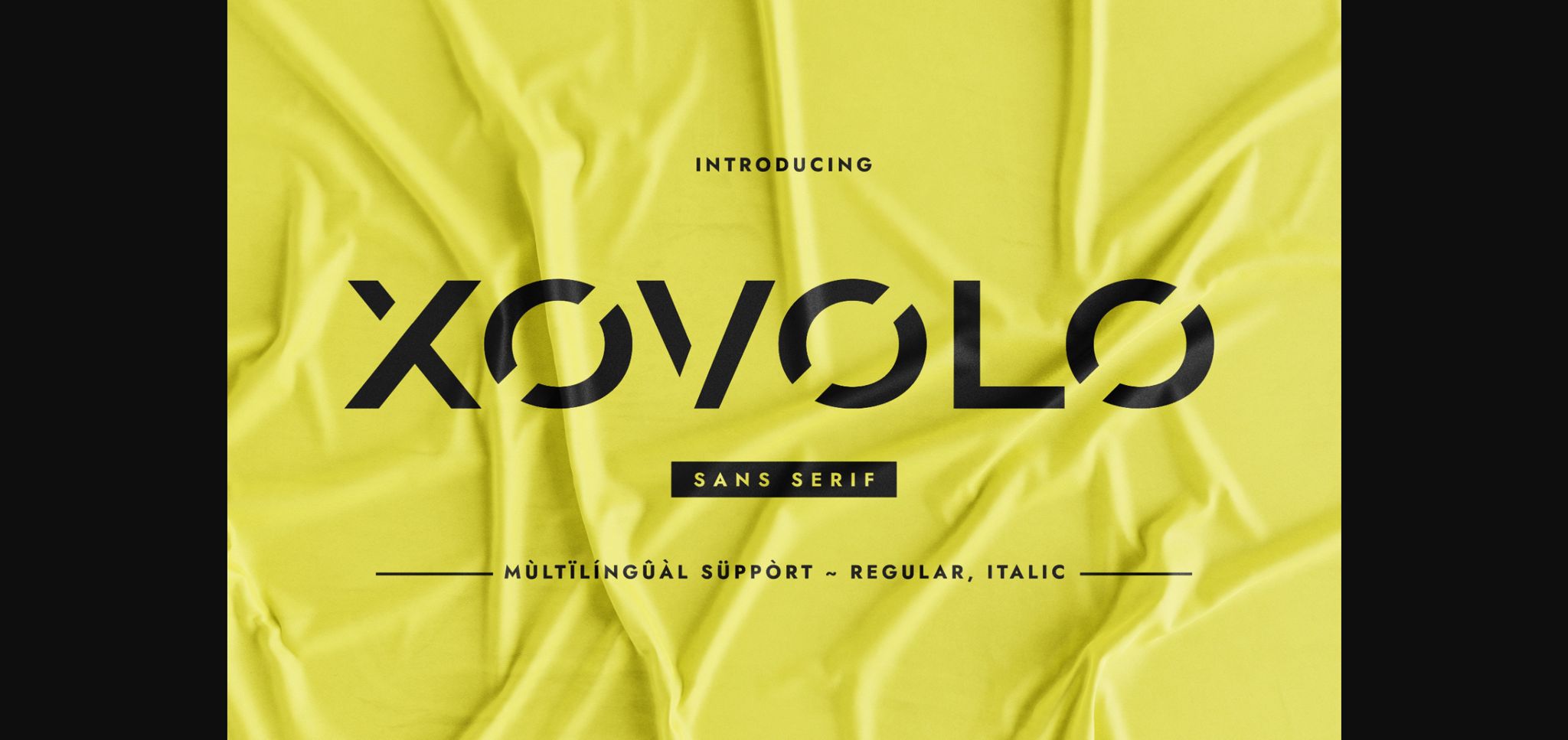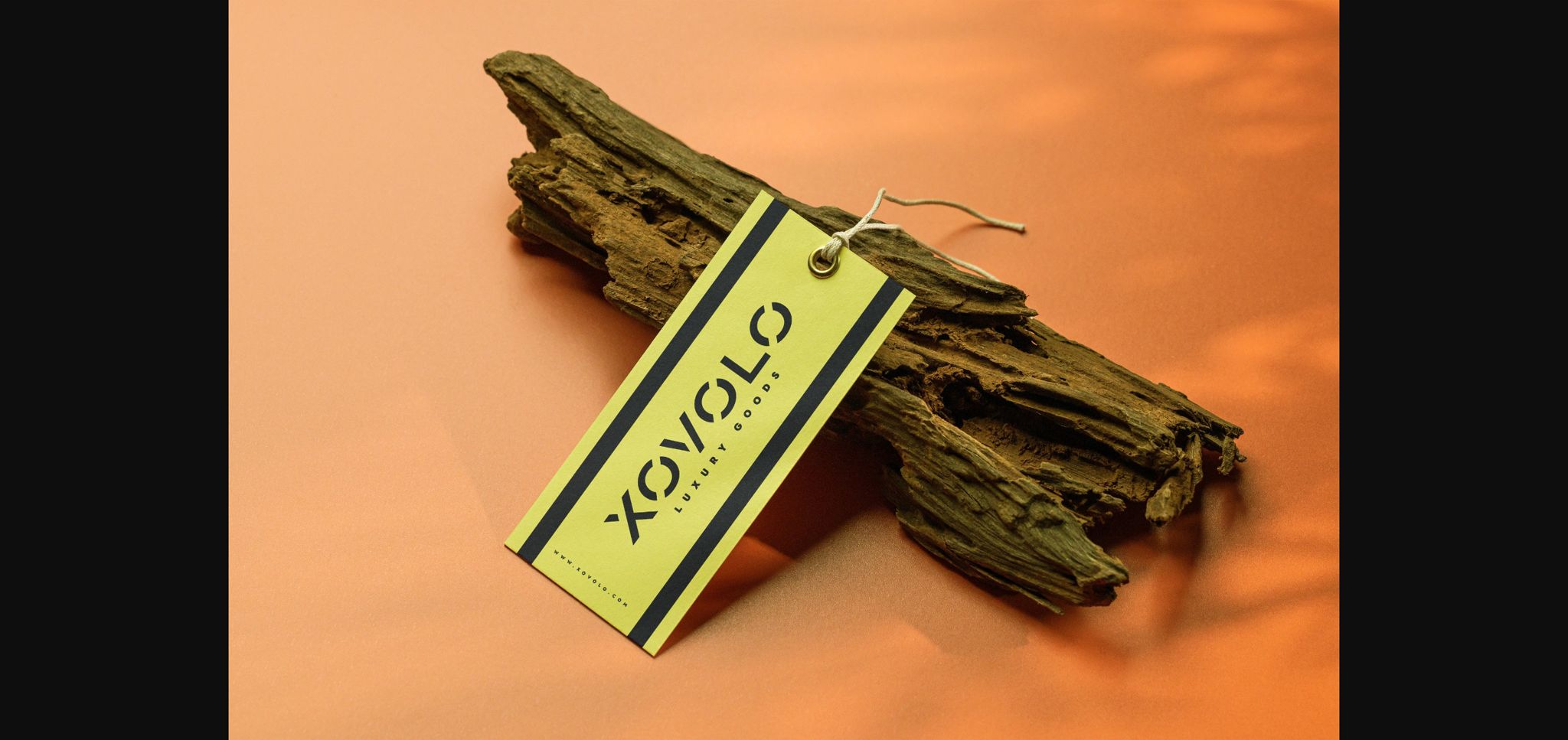
About Xovolo Font
Xovolo is a wide minimalist sans serif font. Its versatility renders it a valid choice when it comes to creating designs that require some minimalistic and clean aspects. Use it in your creative project, and notice how it gives you powerful solutions for many contexts.